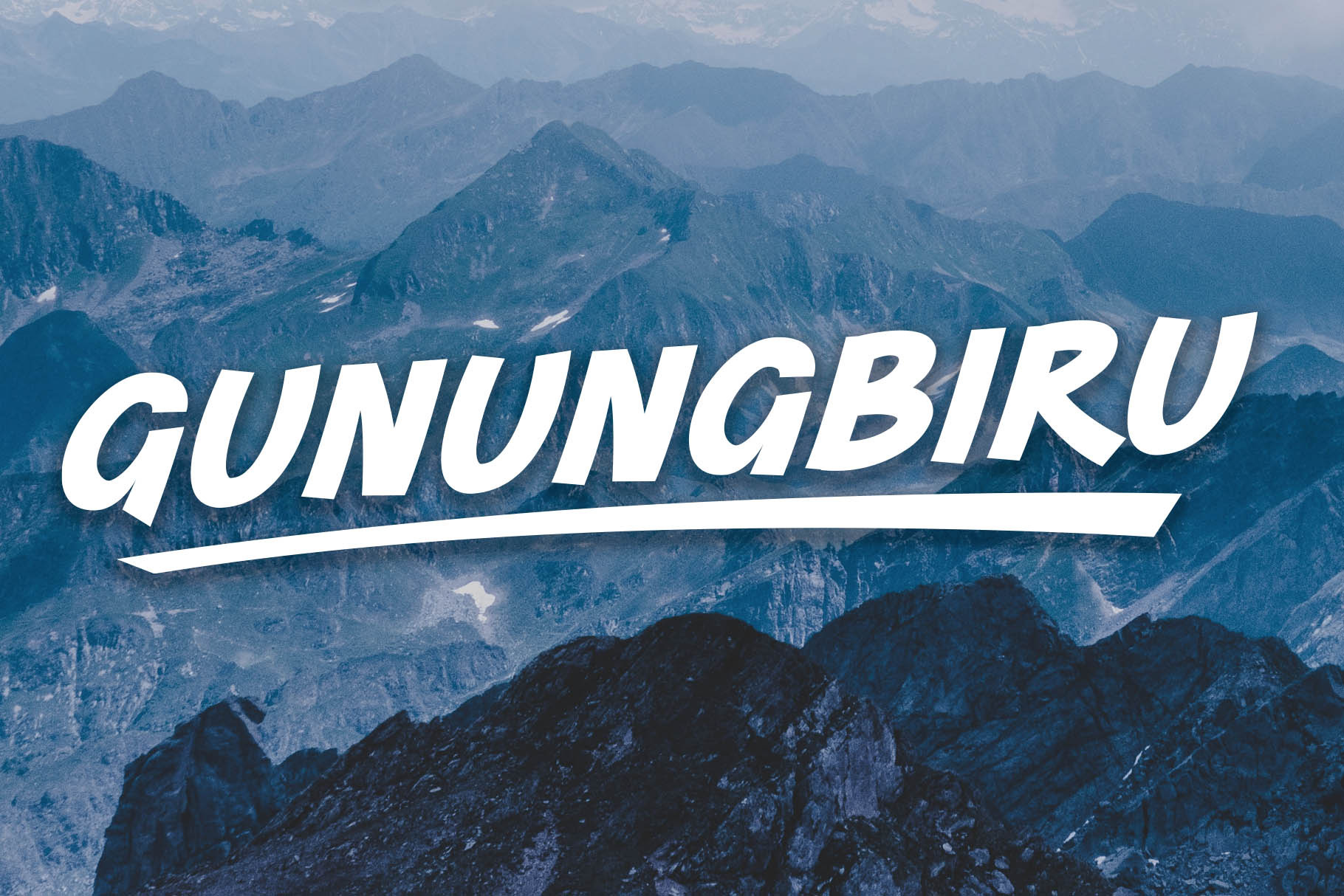
Gunungbiru - Sans Serif Font
Introducing Bifine, a simple casual sans serif font. So perfect for you who needs a typeface for logo designs, magazine, social media, brochure, and many more.